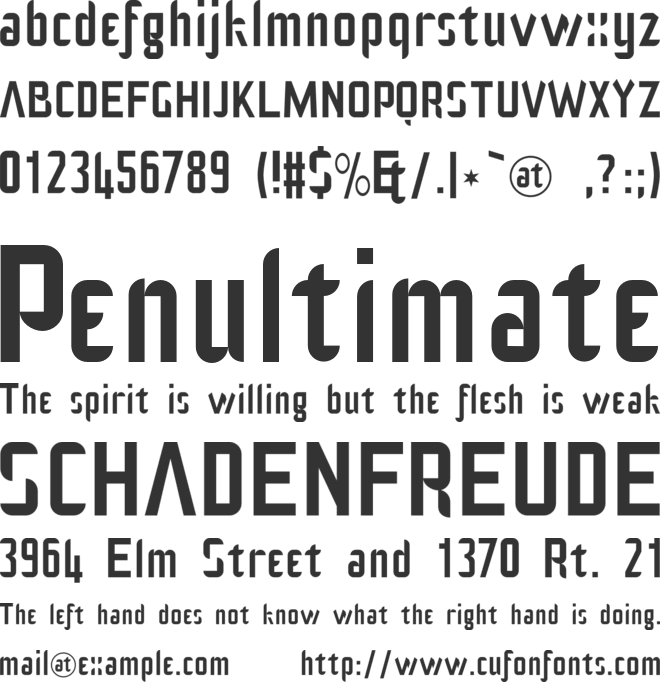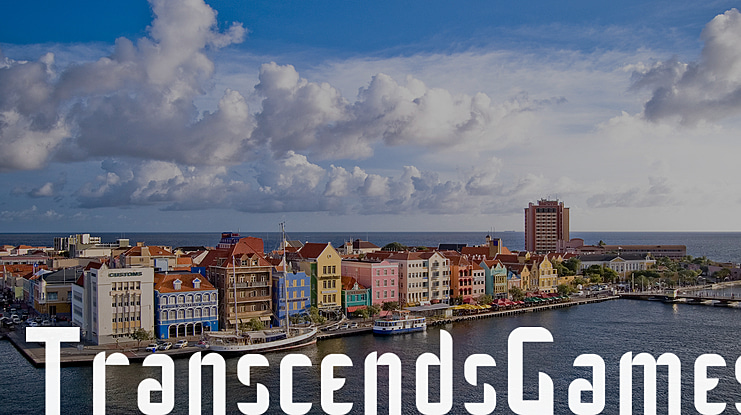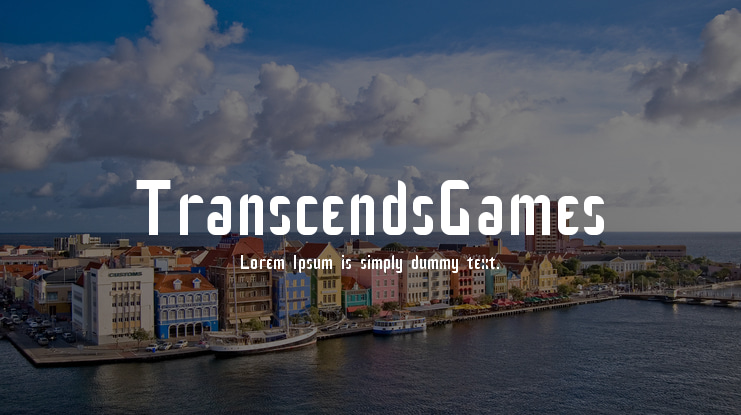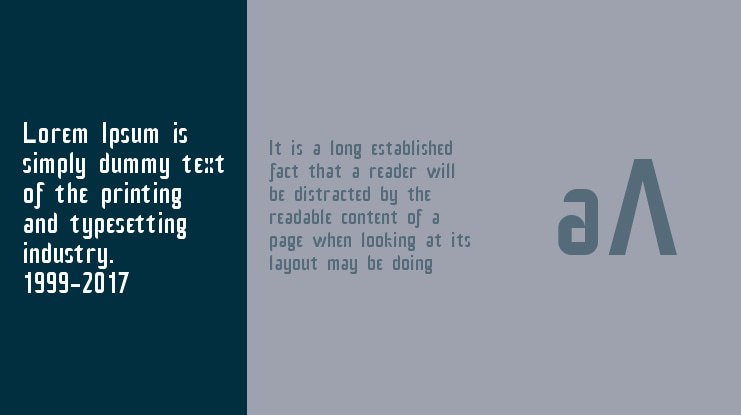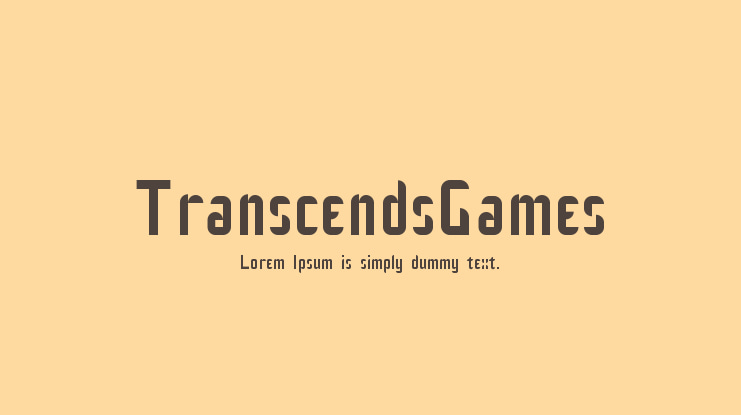
TranscendsGames Font
BUILT around straight lines and quarter circles, this font has a retro-futuristic feel. Like all the other fonts, it is available for free download, use and sharing. This covers all of ASCII. Placed in the public domain - no copyright will be enforced.